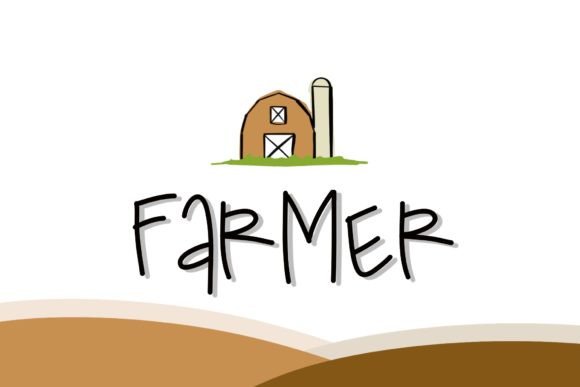
Introducing Farmers Font, an exquisite script font designed to capture the essence of rustic charm and timeless elegance. Crafted by the ingenious Carolina Mejia, this font embodies the organic beauty of handwritten strokes, giving your creations a touch of authenticity and individuality.
Farmers Font is more than just a font; it's an experience that transports you to a simpler time, where nature's rhythm dictates the pace of life. Its irregular glyphs, a harmonious blend of lowercase and uppercase characters, evoke the allure of a bygone era, while its bold, confident strokes exude a sense of unwavering strength and resilience.
Step into the world of Farmers Font and let your creativity flourish. Picture the allure of a vintage chalkboard, where Farmers Font's graceful curves and charming imperfections create an inviting and welcoming atmosphere. Its irregular glyphs dance across the screen, each letter a unique expression of individuality, mirroring the beauty of nature's imperfections.
Farmers Font's versatility extends far beyond the confines of restaurant chalkboards. It effortlessly adapts to a myriad of design projects, from wedding invitations and greeting cards to social media posts and branding materials. Its rustic charm lends a touch of warmth and sophistication to logos, posters, and flyers, while its playful nature adds a touch of whimsy to product packaging and merchandise.
With Farmers Font, you're not just downloading a font; you're embarking on a journey of creativity and self-expression. Its unique character will infuse your designs with a sense of nostalgia and authenticity, capturing the attention of your audience and leaving a lasting impression. So why settle for ordinary when you can embrace the extraordinary?
Farmers Font – The Epitome of Rustic Elegance and Timeless Appeal.